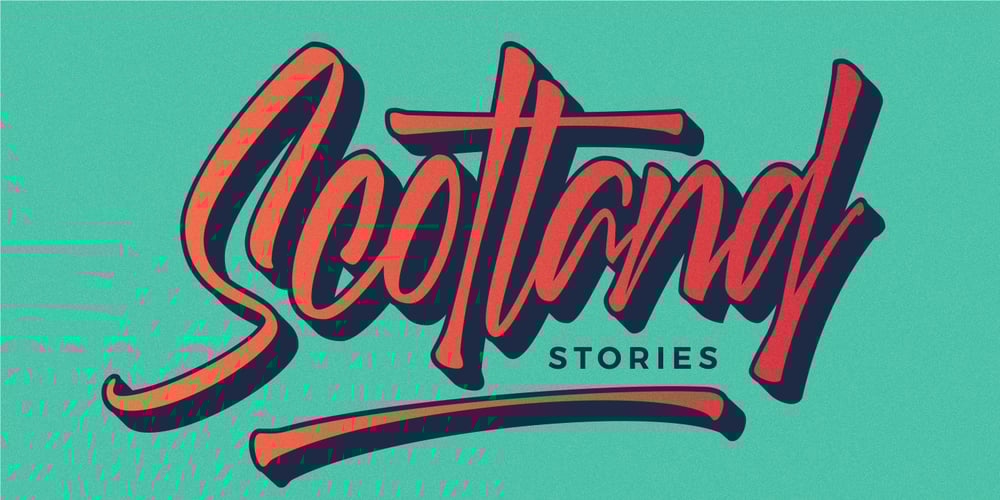
Scotland Stories
Scotland Stories font
Scotland Stories Font Family was designed by Nurul Fajri Redy and published by Redy Studio. Scotland Stories contains 1 styles and family package options. Scotland Stories | Modern ScriptScotland Stories is a Modern Script with fast brushstrokes that make it look elegant and unique. It has a signature style that makes it perfect for logos, branding, print, apparel, and much more. There are also 2 different types: regular, which has no variations, and stamp, which includes a pattern as shown above. Scotland Stories is the perfect font to give your projects a very special look.Scotland Stories features: A full set of upper & lowercase characters Numbers & punctuation Ligatures Stylistic alternate Swashes PUA Encoded Characters – Fully accessible without additional design software. Feel free to give me a message if you have a problem or question. Thank you so much for taking the time to look at one of our products.